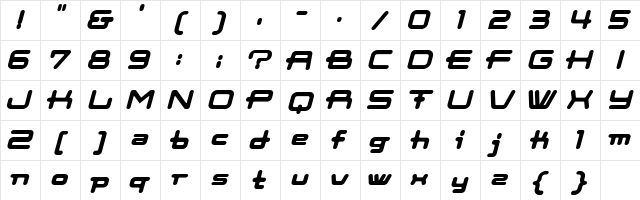
Cootnew BoldItalic
Design Context for Cootnew Typeface
Cootnew is a composed and adaptable typeface that performs quietly and consistently across a wide range of design contexts. Its italic angle brings a sense of urgency and motion to the letterforms. Its bold stroke weight gives it real presence on the page.
Pro Tip: Use Cootnew for emphasis, pull quotes, and subheadings where its slanted energy can add rhythm to the layout.